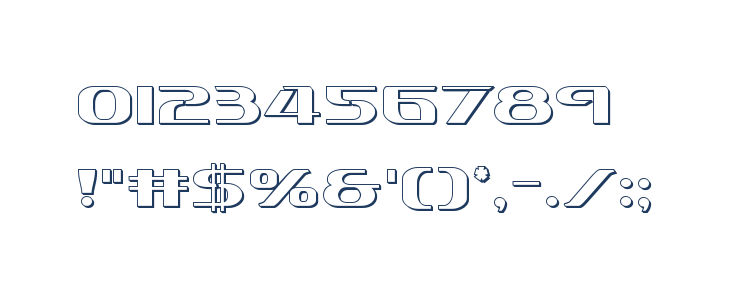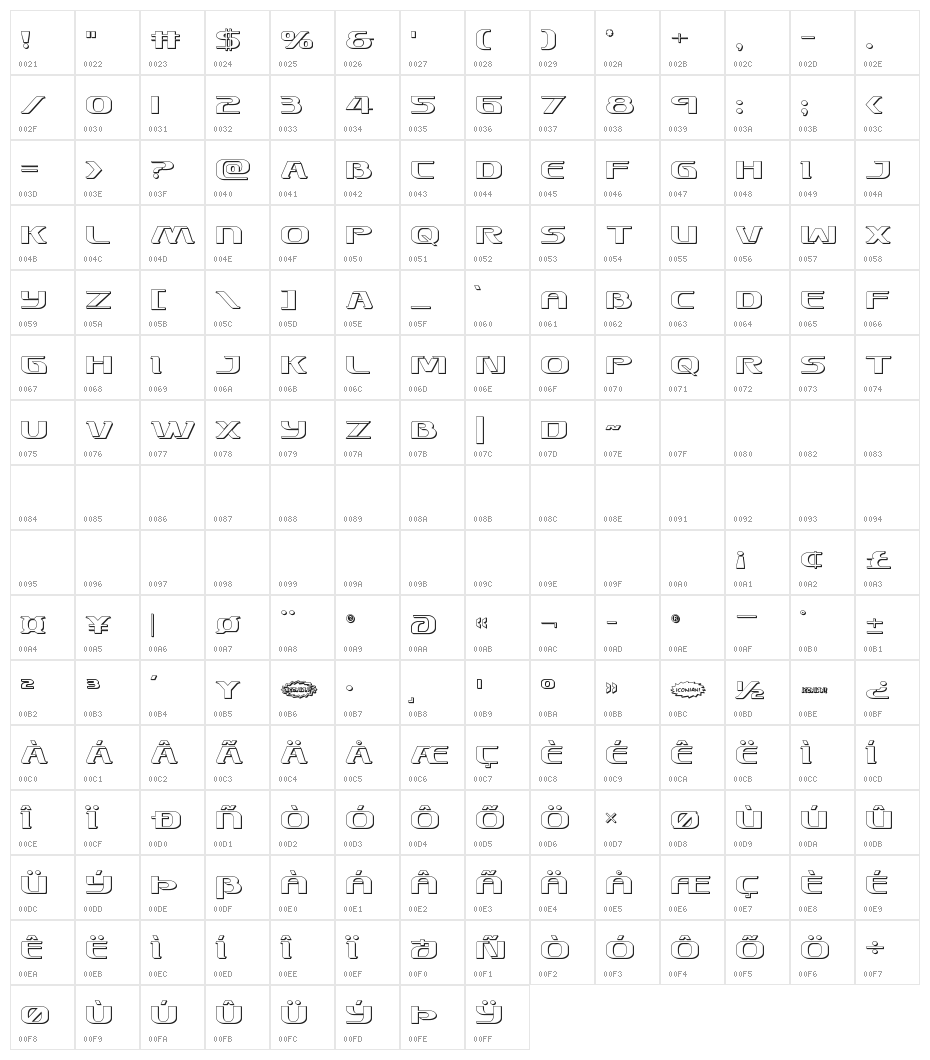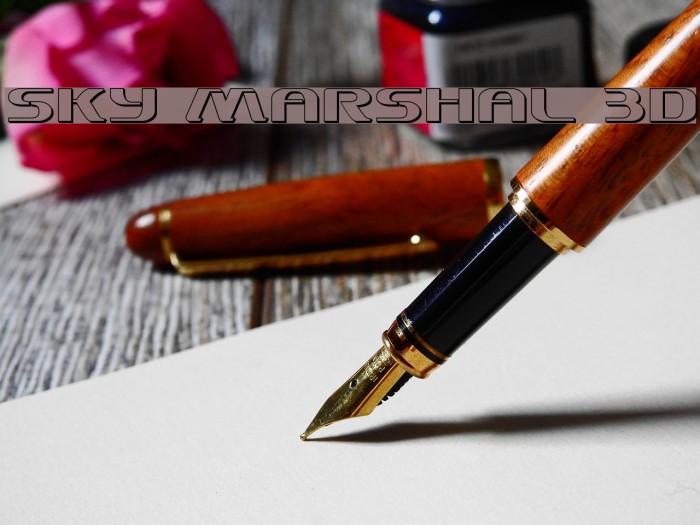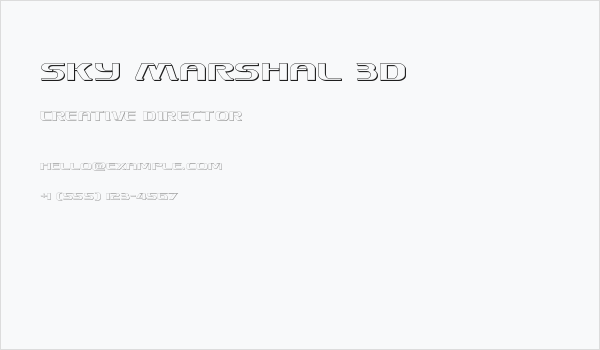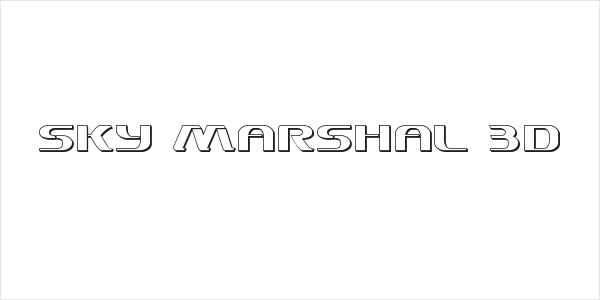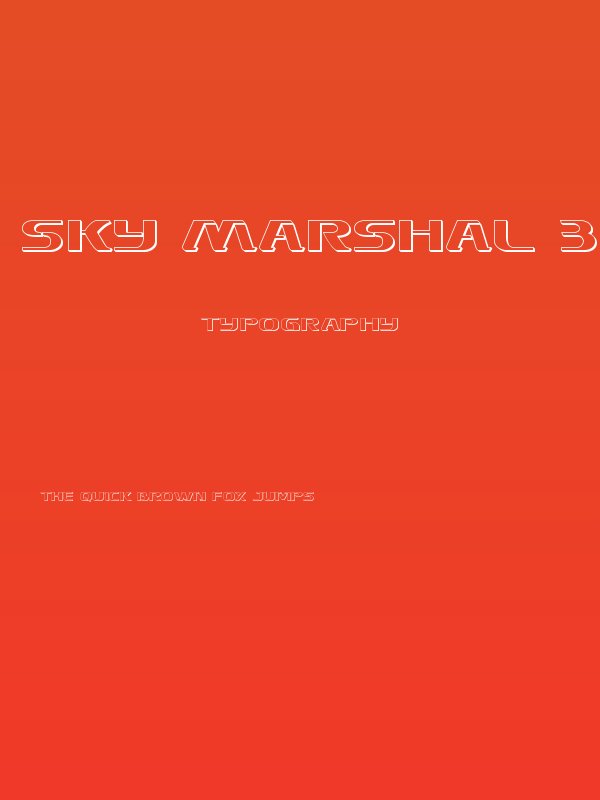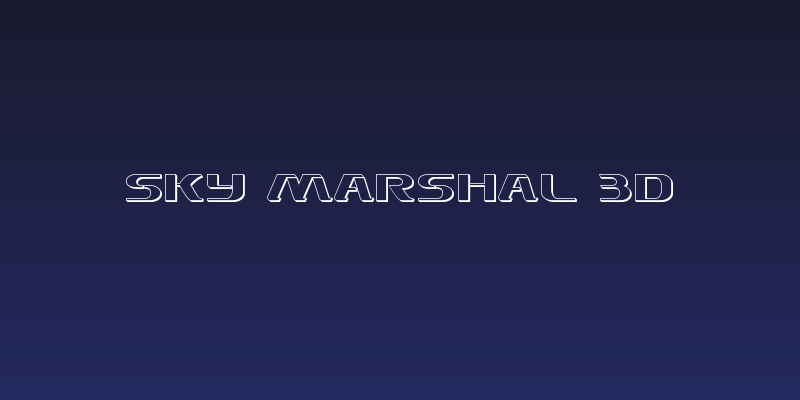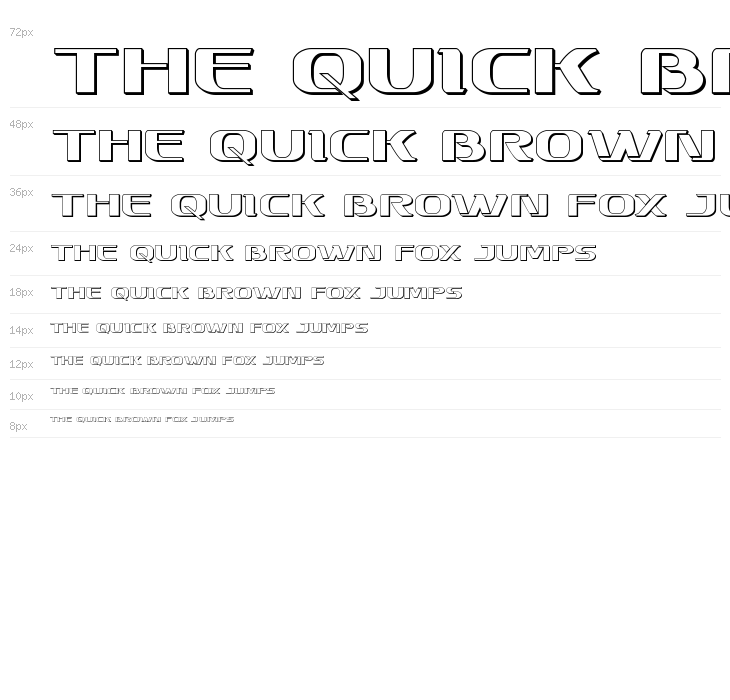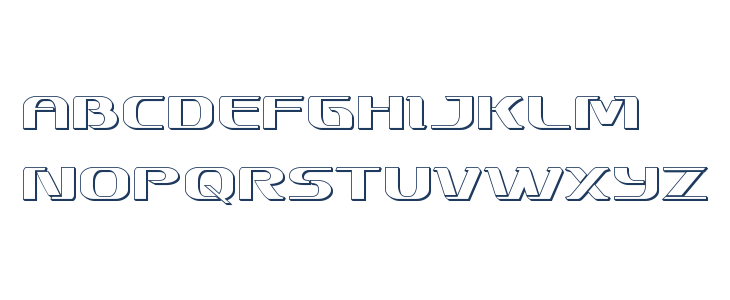
Sky Marshal 3D Font
Sky Marshal 3D Description
This font features a futuristic and geometric design, characterized by its three-dimensional appearance. The letters are constructed with a bold outline that gives them a sense of depth and structure. The angular and sharp edges contribute to a modern and tech-inspired aesthetic, making it suitable for projects that require a cutting-edge look. The uniformity in the design ensures consistency across all characters, including numbers and special symbols. This font is particularly striking in larger sizes where its unique style can be fully appreciated.